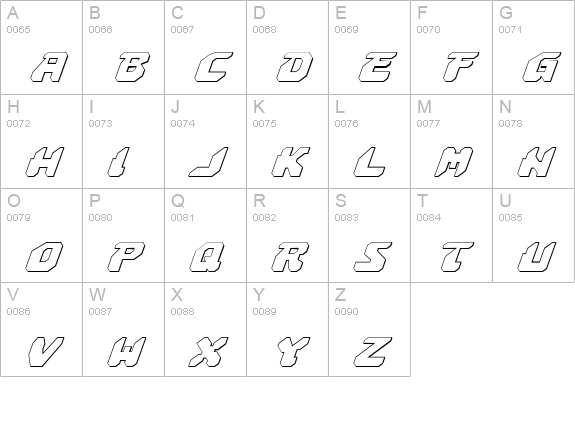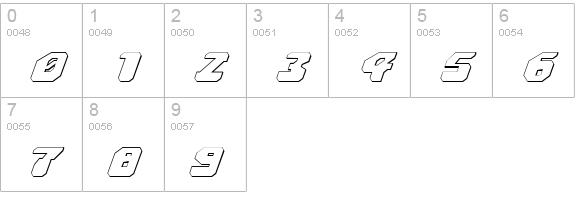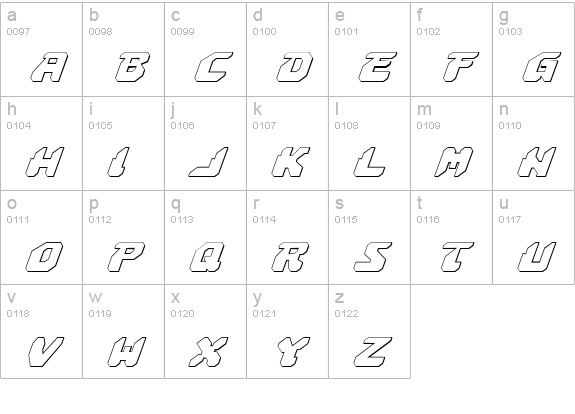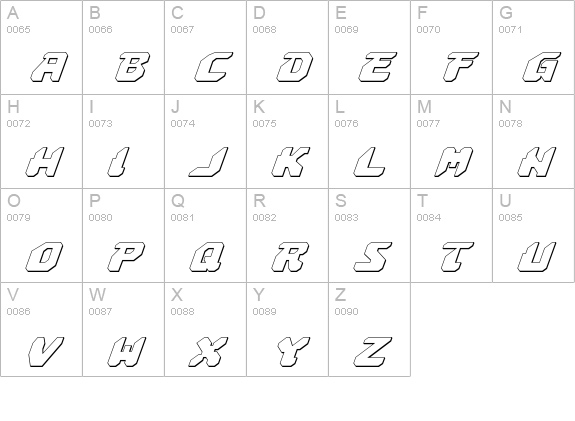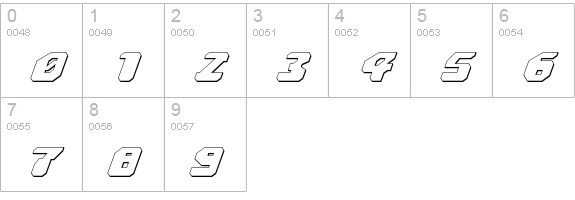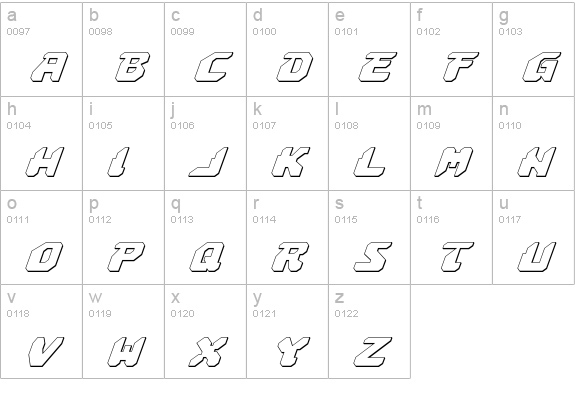
Astropolis 3D Italic is a distinctive, italic variant in the Astropolis typeface family \xE2\x80\x94 well suited to design and typography projects.
Astropolis 3D Italic font is a stunning display typeface that brings a futuristic and dynamic feel to any design project. Its sleek and modern design is perfect for creating eye-catching headlines, posters, and branding materials. The 3D effect adds depth and dimension to the text, making it stand out even more. The italic style of Astropolis 3D font adds a touch of sophistication and elegance, making it ideal for projects that require a more refined and stylish look. Whether you're designing a tech-related logo, a sci-fi movie poster, or a high-tech website, this font is sure to make a bold statement. And the best part? Astropolis 3D Italic font is completely free to download at FontsMarket.com. So you can add this versatile and striking typeface to your font collection without breaking the bank. Don't miss out on this fantastic opportunity to elevate your designs with Astropolis 3D Italic font!